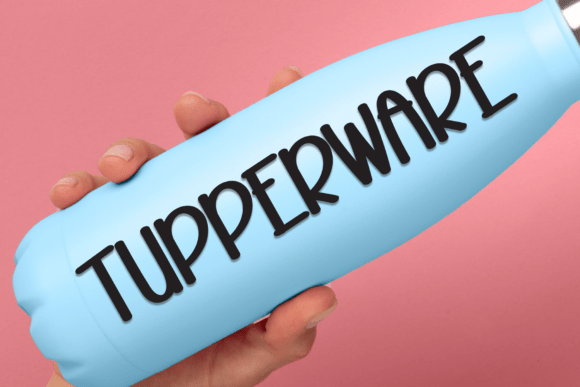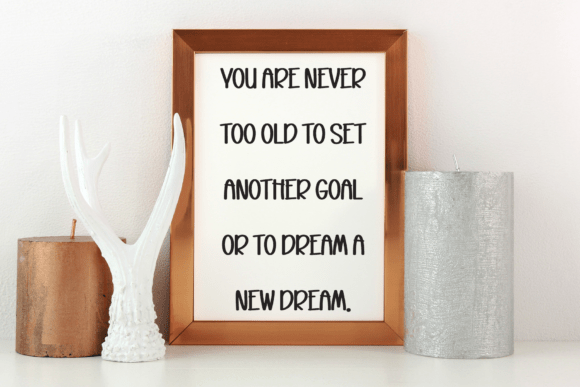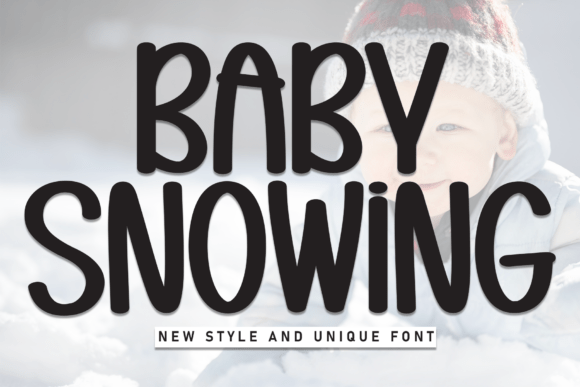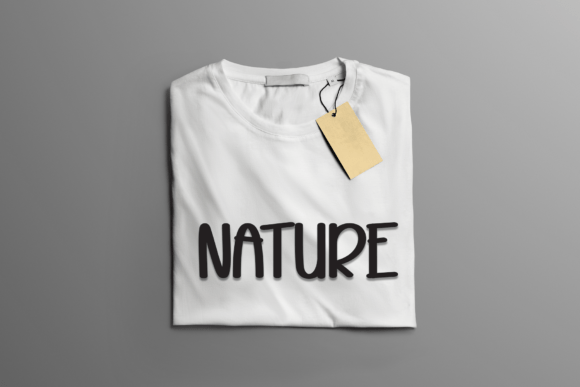
Baby Snowing Font: A Cute Display Font for Social Media Design
About the Baby Snowing Font
The Baby Snowing Font is here to transform your projects with its distinctive character and style. Baby Snowing is a casual and neat display font that radiates a fresh, friendly vibe. With clean lines and a relaxed structure, it’s perfect for packaging, posters, and social media graphics. The approachable design adds charm and clarity to projects while maintaining a polished appearance.
Baby Snowing’s friendly, casual nature makes it ideal for projects requiring a lighthearted yet sophisticated touch. It excels in headlines, short-form text on packaging, and social media posts. However, its legibility suffers in longer blocks of text, making it unsuitable for body copy or UI elements requiring extensive readability.
Consider pairing Baby Snowing with a clean sans-serif like Lato for a balanced contrast, or a more playful script font like Great Vibes for a whimsical feel. For a more modern aesthetic, a geometric sans-serif like Montserrat would provide a strong counterpoint. The font’s overall personality is best described as cheerful and approachable, conveying a sense of youthful energy and optimism.
Avoid using Baby Snowing for projects needing a formal or serious tone. Its relaxed structure is best suited for brands targeting a younger demographic or those wishing to project a friendly, approachable image.